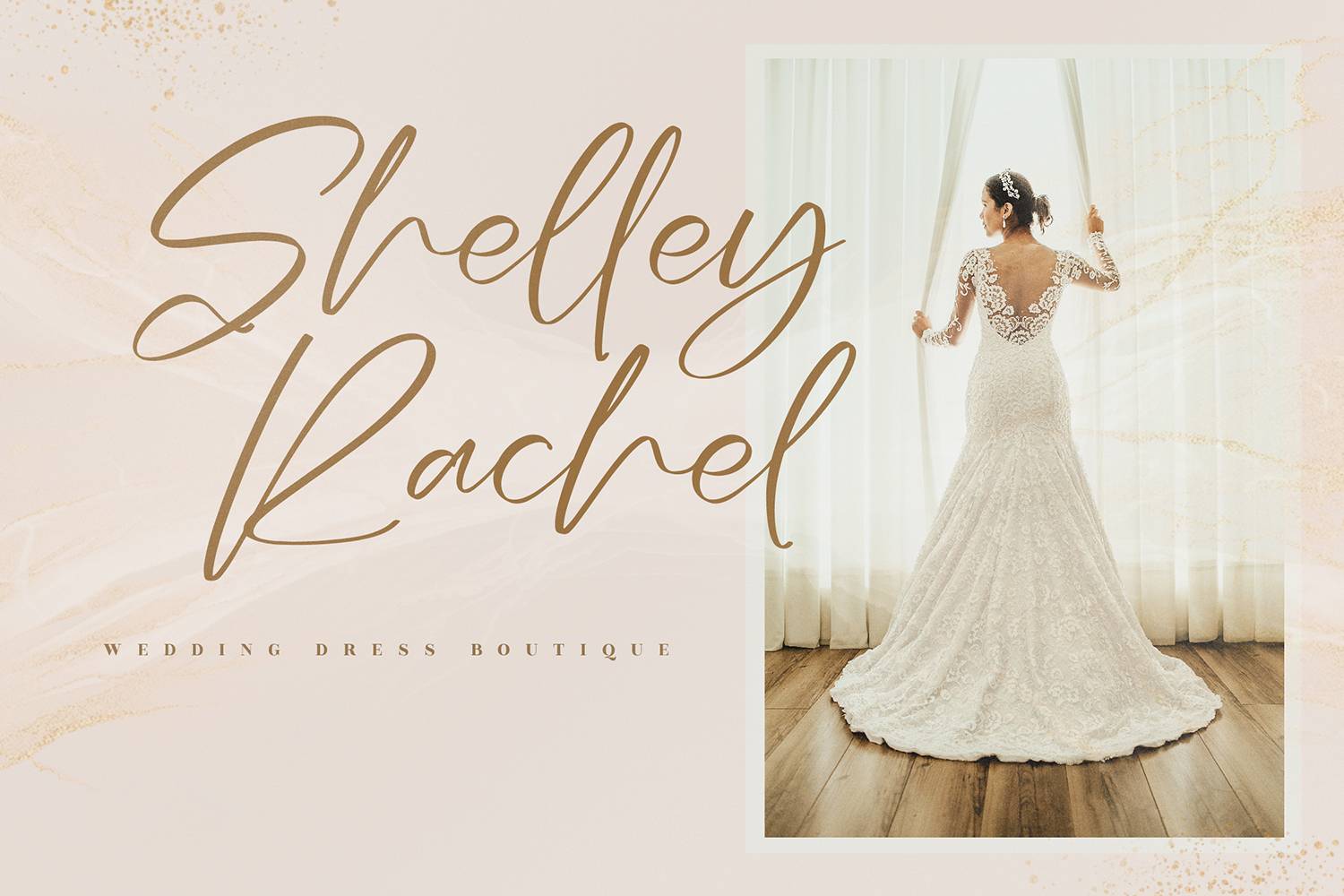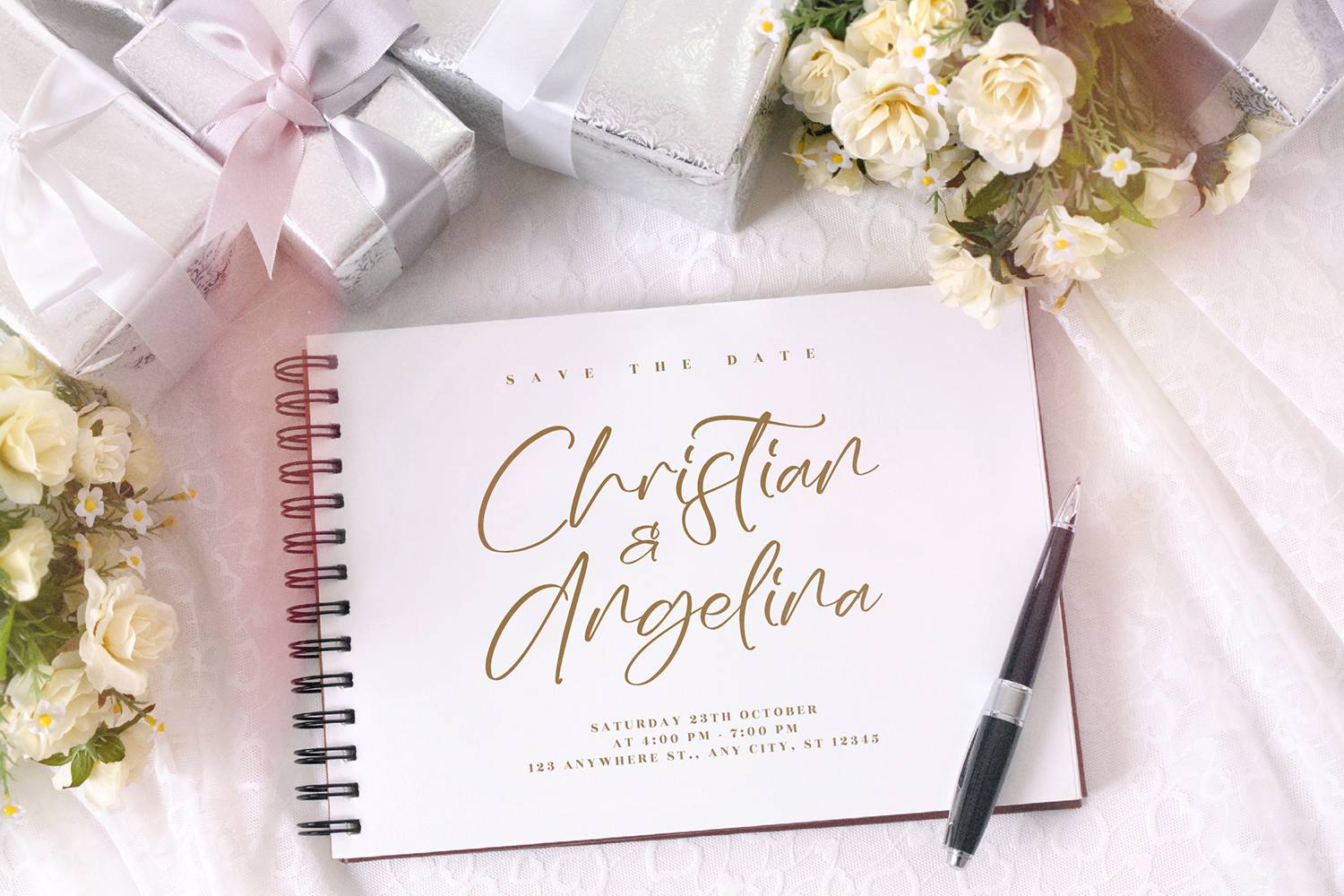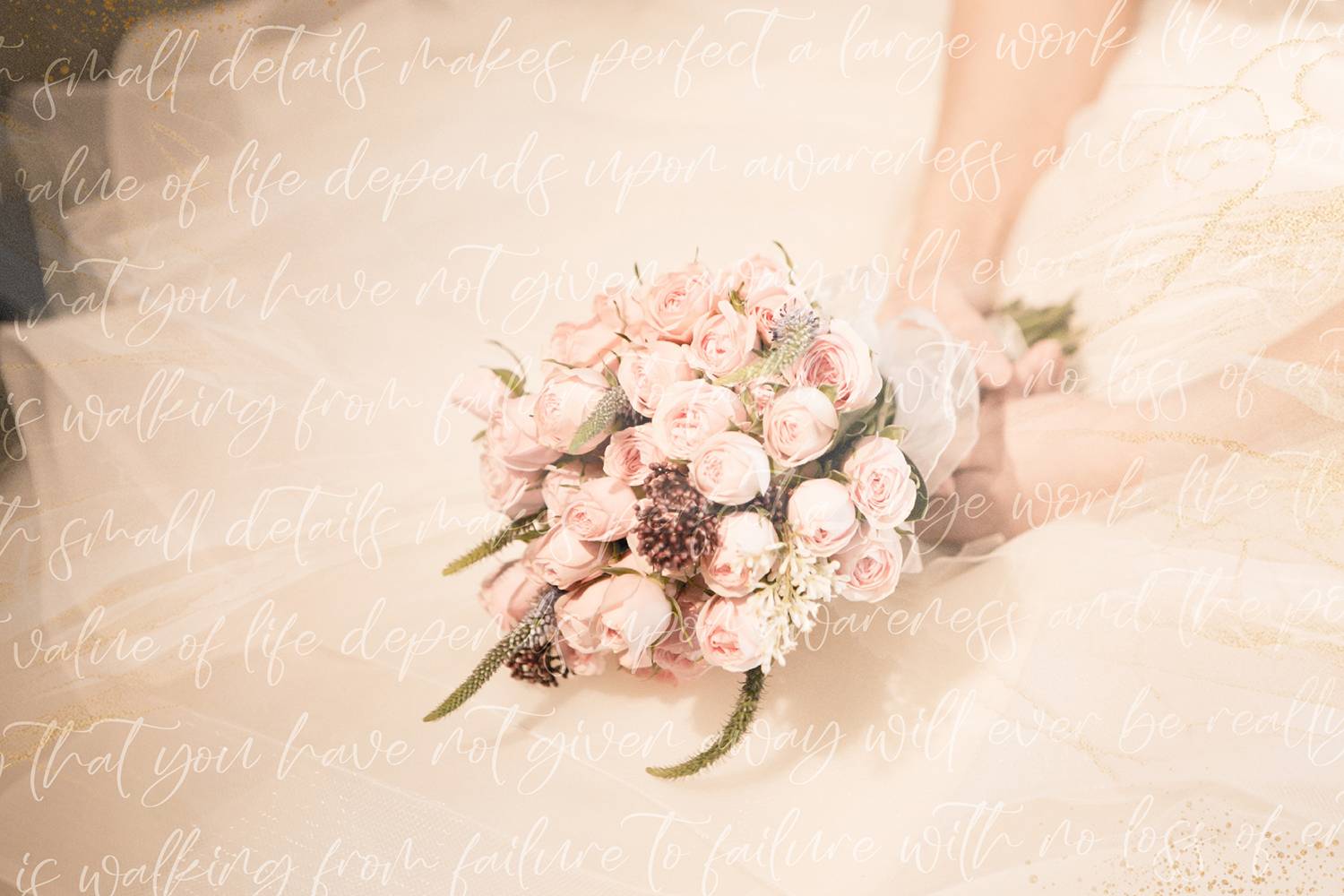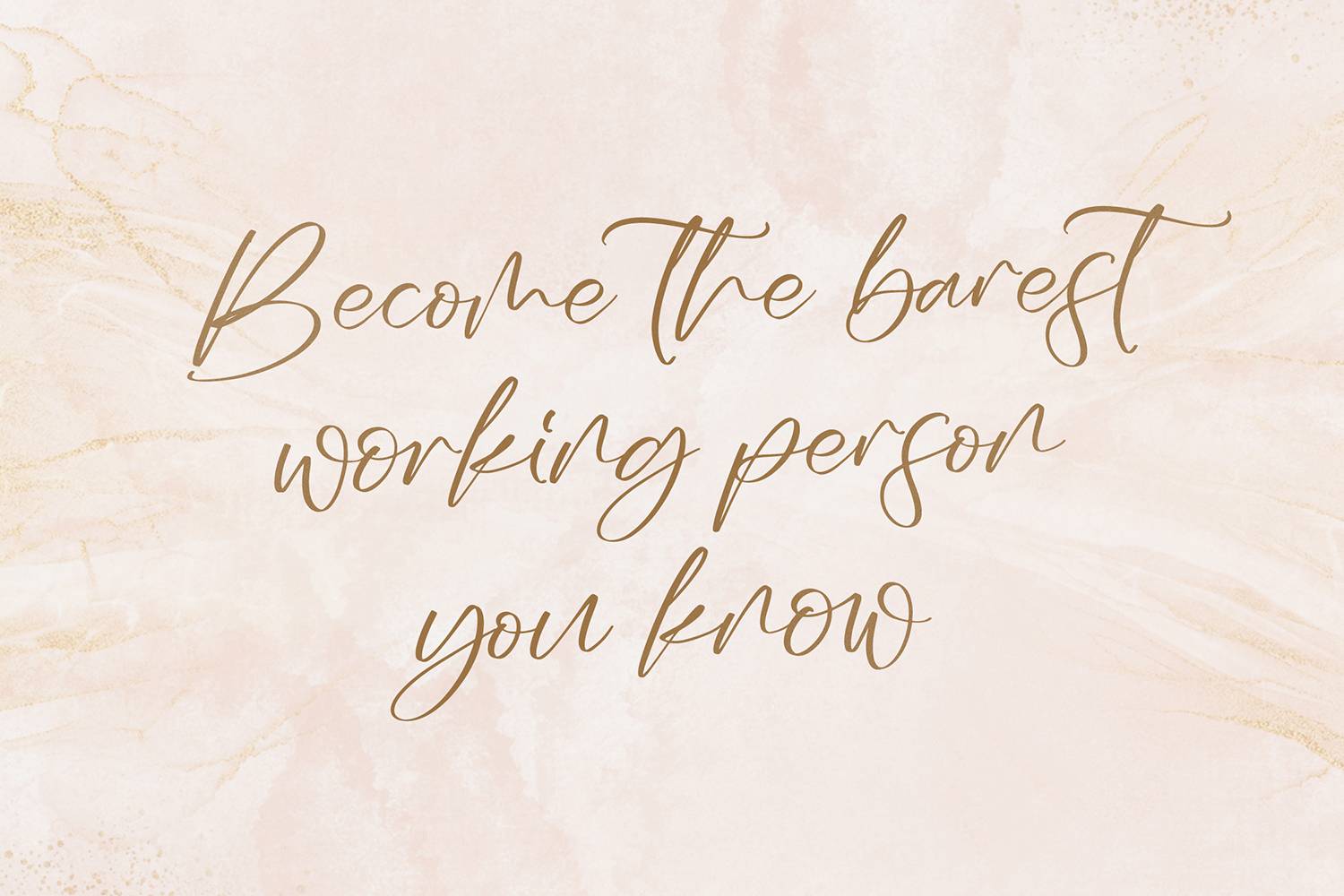
Sashmitha Whitmore is a delicate, elegant script font with a handwritten feel, characterized by thin, flowing strokes and a graceful, airy structure. Its tall, slightly condensed letterforms and subtle flourishes create a sophisticated and personal touch, making it perfect for invitations, branding, and any design seeking a refined, stylish expression. This font shines in contexts where a sense of elegance and individuality is desired, such as luxury packaging, wedding materials, and high-end editorial projects.
Sashmitha Whitmore Font
About Sashmitha Whitmore Font